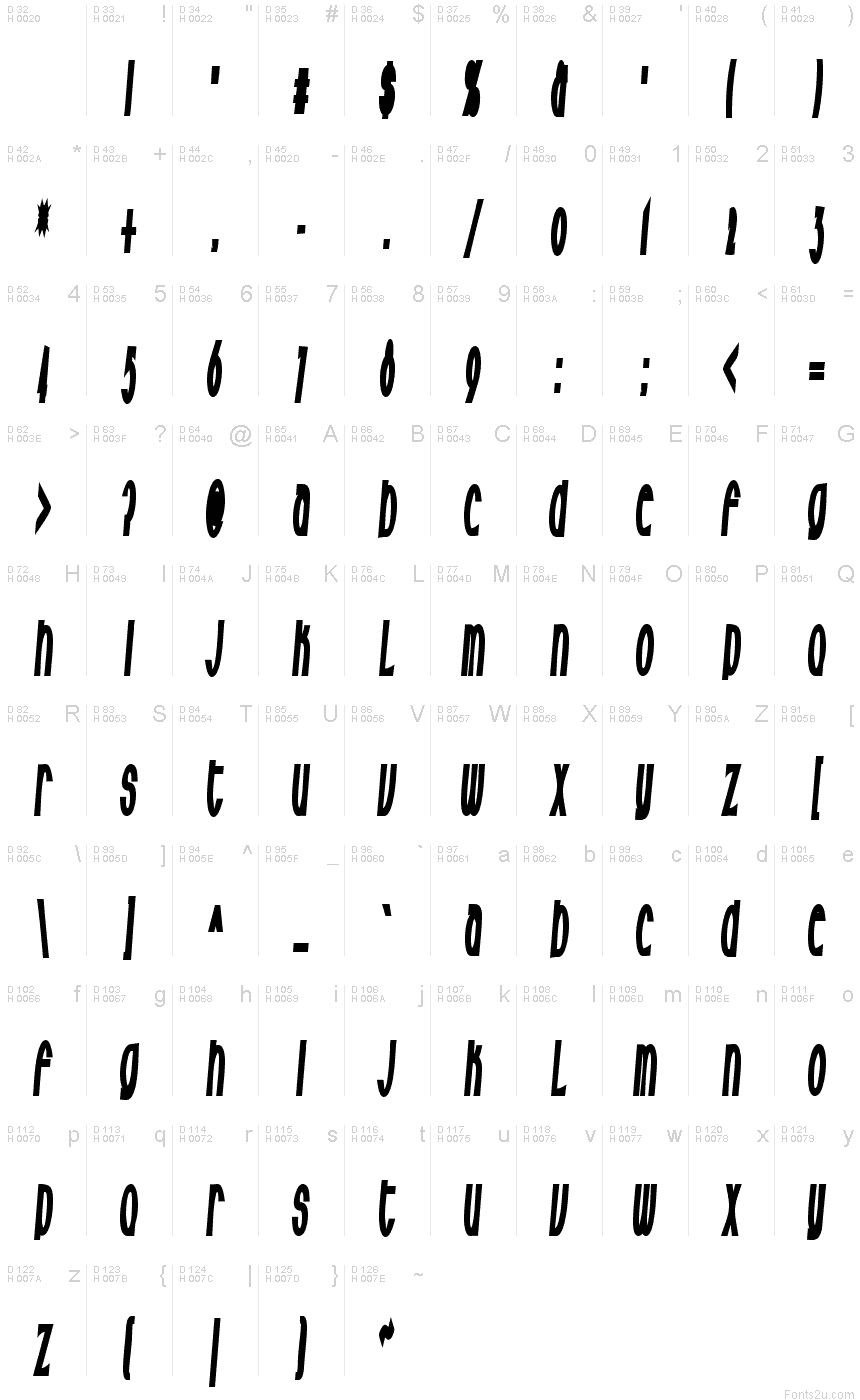
Milkfresh, from Font-a-licious Fonts, is a free comic display font with a lanky, hand-drawn bounce. The letters rise tall and narrow with uneven heights, sharp angles, and a slightly wobbly rhythm that feels more sketchbook than polished signwork, giving the alphabet a loose, mischievous pull.
It fits posters, zine covers, kids’ packaging, café chalkboard-style branding, and quick title cards where a free font with this much vertical stretch can do a lot with just a few words. Use it for short headlines, cover lines, or monogram-like initials when you want the caps to feel playful but still bold enough to hold the page.